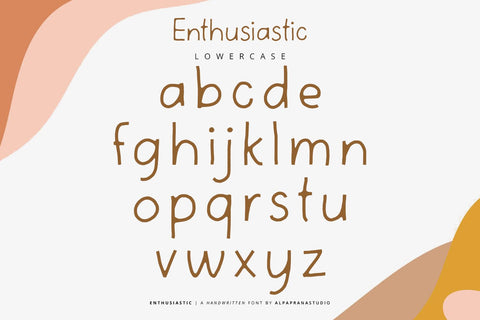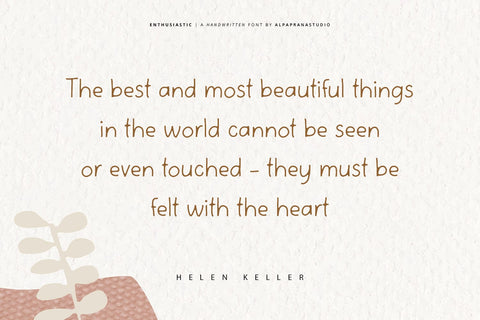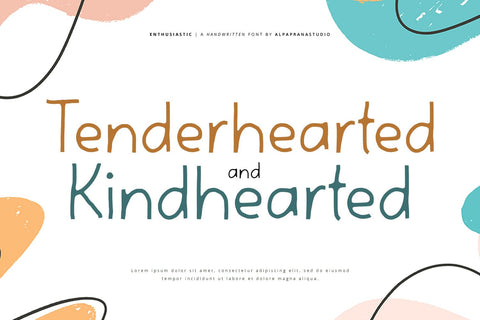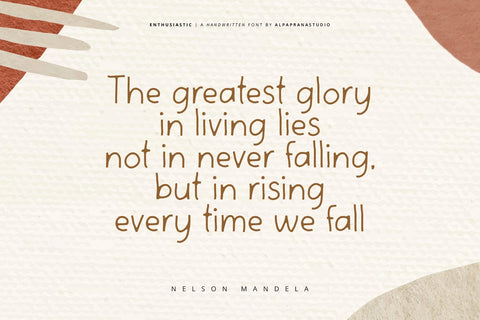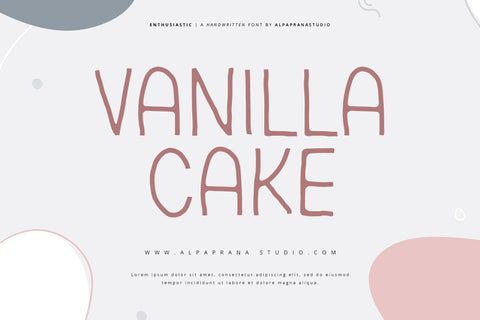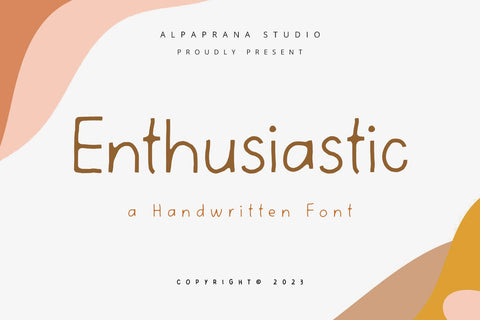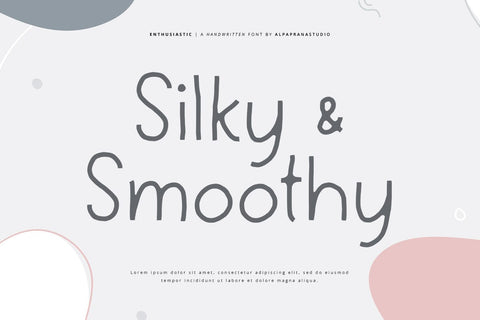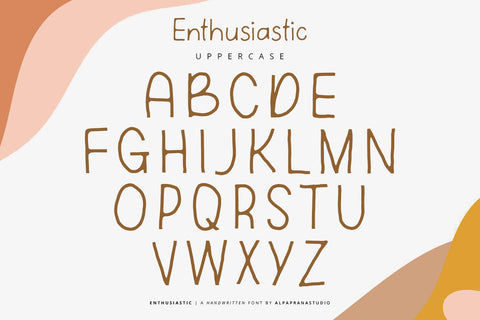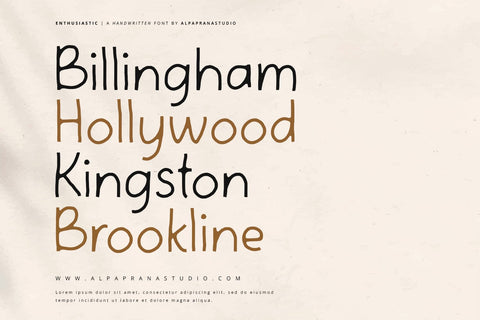
Enthusiastic - Handwritten Font
Enthusiastic is a handwritten display font with natural and modern feels. It will be perfectly used for Branding, Logo Design, Lettering, Logotype, Clothing, Poster, magazine, packaging, posters, shopping bags, t-shirts, book covers, photography, special events and other design project.